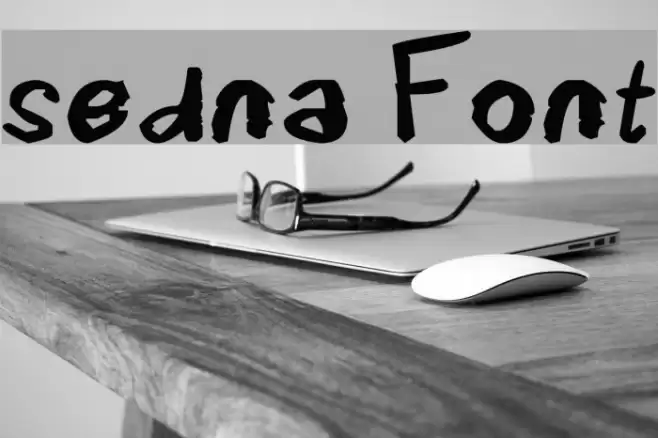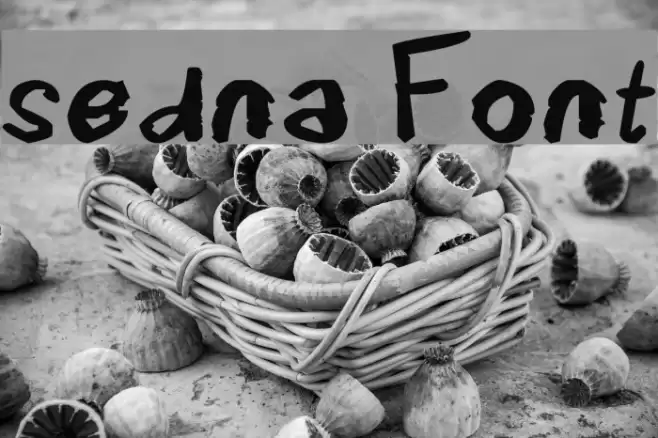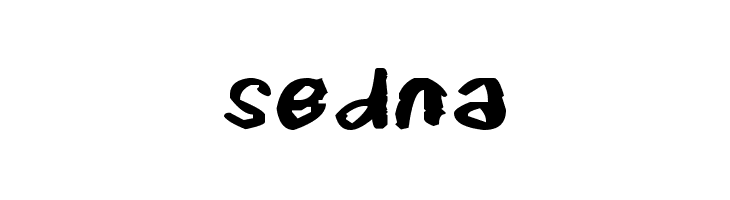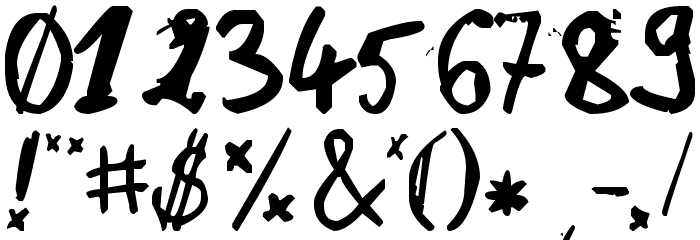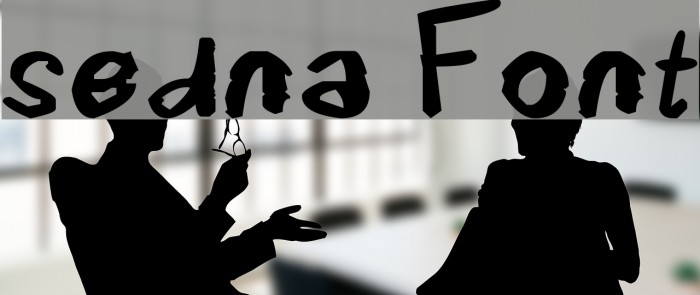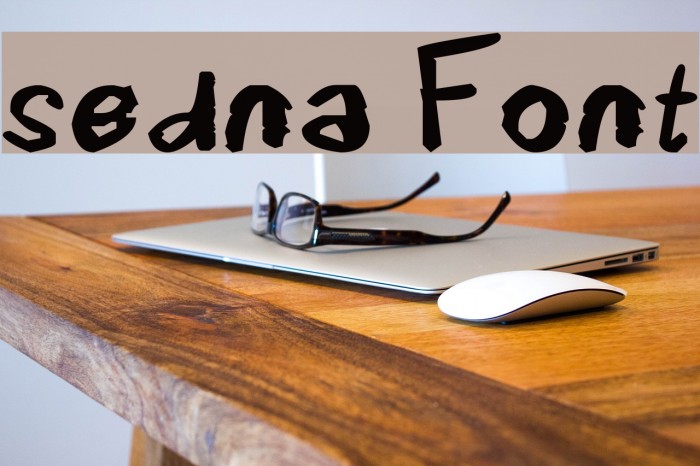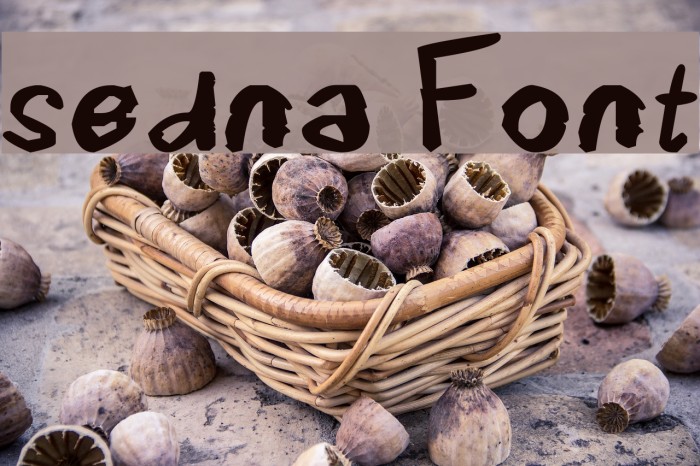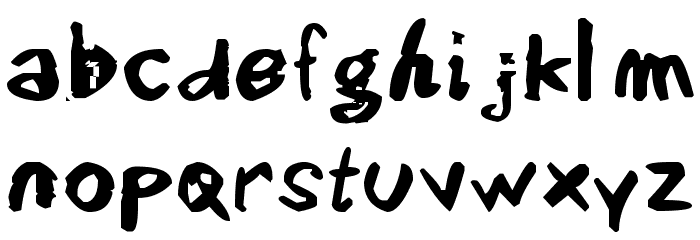
sedna Font
sedna Description
This font features a bold, handwritten style with a playful and energetic appearance. The letters are irregular and dynamic, giving a sense of movement and personality. The uppercase and lowercase characters maintain a consistent style, with rounded edges and varying stroke thicknesses that add to the casual, informal feel. The numerals and special characters follow the same aesthetic, ensuring a cohesive look across all glyphs. This font's unique charm makes it stand out, ideal for projects that require a touch of creativity and individuality.
A bold, handwritten font with a playful and energetic style from Handwritten fonts.
- Proposed Projects: Ideal for creative projects such as posters, invitations, greeting cards, and branding materials that require a personal touch.